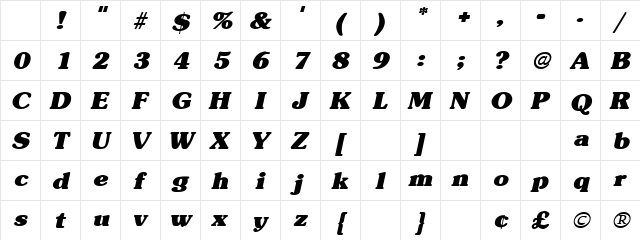
Poesy is a composed and adaptable typeface that performs quietly and consistently across a wide range of design contexts. The slanted form adds forward momentum and visual energy.
Pro Tip: Use Poesy for emphasis, pull quotes, and subheadings where its slanted energy can add rhythm to the layout.